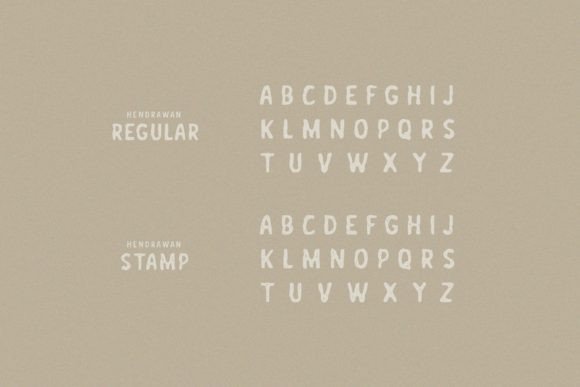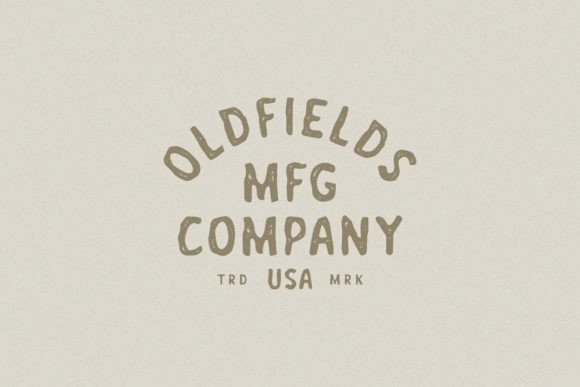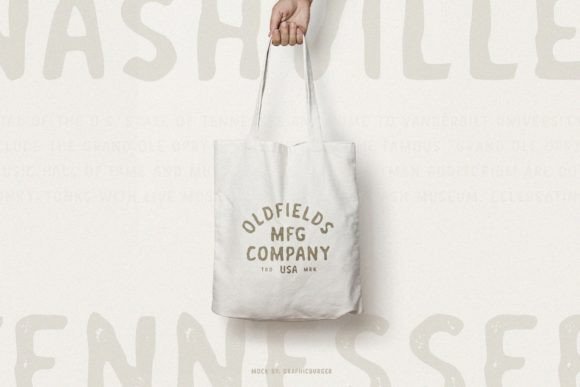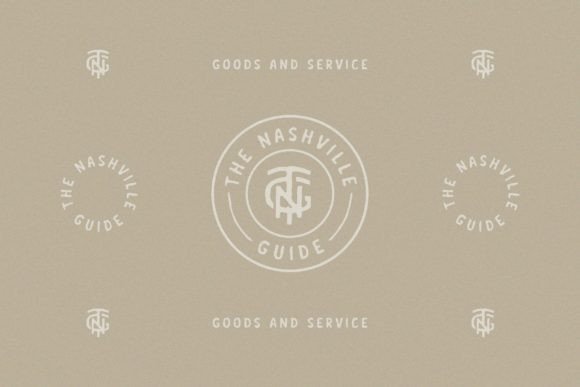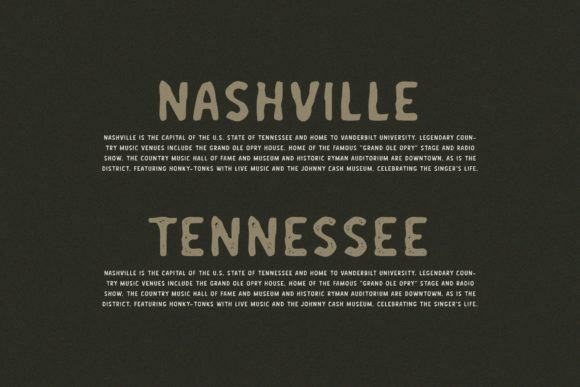
Introduction to Hendrawan Font
Have you ever stumbled upon an old photograph or a vintage advertisement and been instantly captivated by its unique charm? I know I have. The faded colors, the distressed textures, and the quirky typography all come together to create a nostalgic and enchanting experience. As designers, we’re always on the lookout for that special something that can transport our audience back in time. And that’s exactly what the Hendrawan Font does.
As a free download, the Hendrawan Font is an invaluable design resource for any creative project. Its rough-style sans serif design exudes an air of sophistication and elegance, making it perfect for adding that special retro touch to your designs. Whether you’re working on a branding project, creating a social media campaign, or designing a website, the Hendrawan Font is sure to elevate your work to the next level.
With its high-quality design and transparent background, the Hendrawan Font is a versatile and user-friendly resource that’s sure to become a staple in your design arsenal. So why not give it a try and see how it can add that special something to your next creative project?
Key Features of Hendrawan Font
- Unique and customizable font with a transparent background for seamless integration
- Designed with high resolution in mind, suitable for use in print and digital applications
- Perfect for designers looking for a distinctive and stylish font to enhance their designs
Honest Review: Hendrawan Font
I recently came across the Hendrawan Font, and I’m excited to share my thoughts on this design resource. As a designer, I appreciate high-quality fonts that can elevate a creative project. The Hendrawan Font definitely fits the bill.
- ✨ Unique aesthetic: The font has a distinctive, modern look that’s perfect for contemporary designs.
- ✨ Versatility: Hendrawan Font is suitable for various design projects, from digital products to print materials.
- ⚠️ Limited font sizes: The font is available in a limited range of sizes, which might not be ideal for complex designs.
- ⚠️ Transparency issues: The transparent background option can be finicky, requiring some tweaking to achieve the desired effect.
Overall, I’m impressed with the Hendrawan Font. While it’s not perfect, its unique aesthetic and versatility make it a valuable addition to any designer’s toolkit. If you’re looking for a high-quality font for your creative project, Hendrawan Font is definitely worth checking out.
Tips for Getting the Most Out of Hendrawan Font
For optimal results, pair the Hendrawan Font with a complementary design resource, such as a matching color scheme or graphic element. You can also experiment with different font sizes and styles to achieve the desired visual effect.
Common Use Cases for Hendrawan Font
The Hendrawan Font is suitable for a variety of creative projects, including branding materials, social media graphics, and digital presentations. Its versatility and unique design make it an excellent addition to any design resource library.